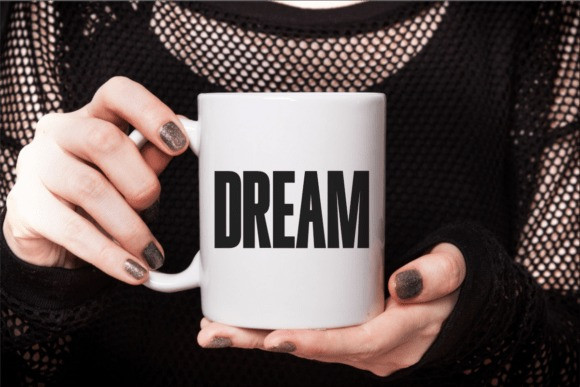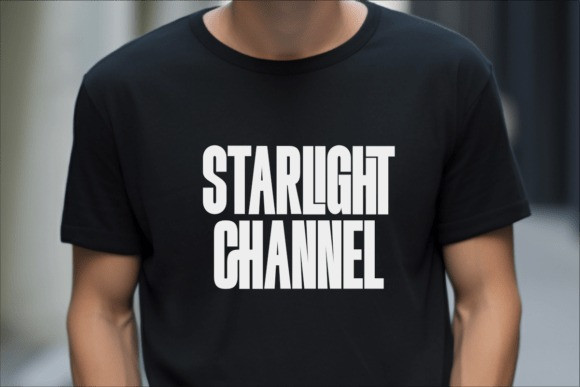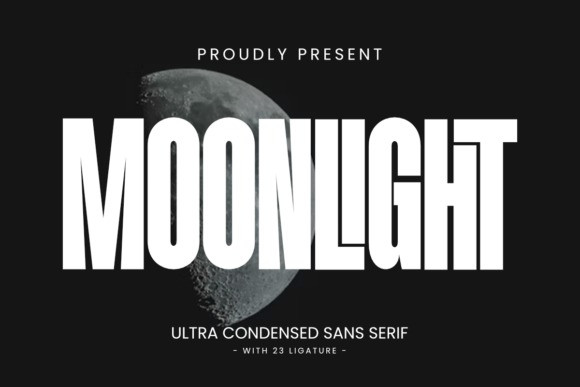
Moonlight Condensed Font
Moonlight Condensed Font is an ultra-condensed sans-serif font with a bold and tall design that makes your creative projects stand out. It’s perfect for t-shirt design, posters, crafts, Cricut projects, logos, and more. With 23 unique ligatures, Moonlight gives your designs a strong modern touch while staying versatile for print and digital use.